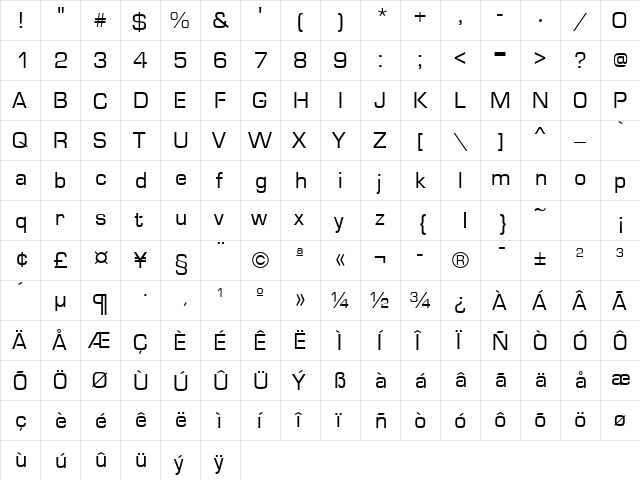
Micro Regular
Design Context for Micro Typeface
Micro takes a measured approach to typography — its balanced proportions and neutral character make it a reliable workhorse for both digital and print work.